Web Font Overview 01: “What is Web Font?”
Web font is a technology that enables displaying a web page in a specific font by reading font data from the internet.
Although it cannot be said that web font is commonly used in Japan yet, many websites and services in English-speaking countries have already been utilizing web font.
As a test, the same website is created in different fonts.
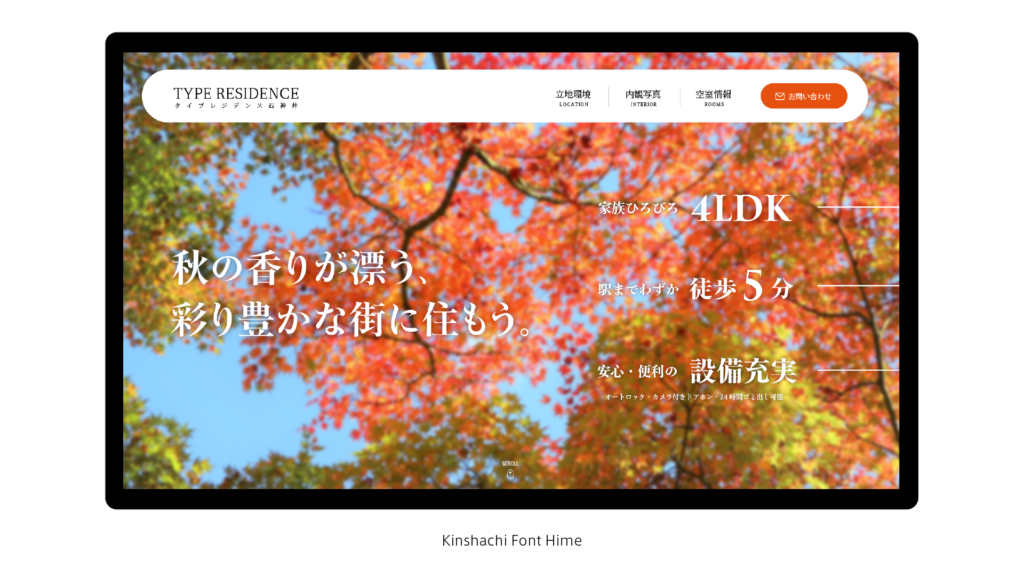
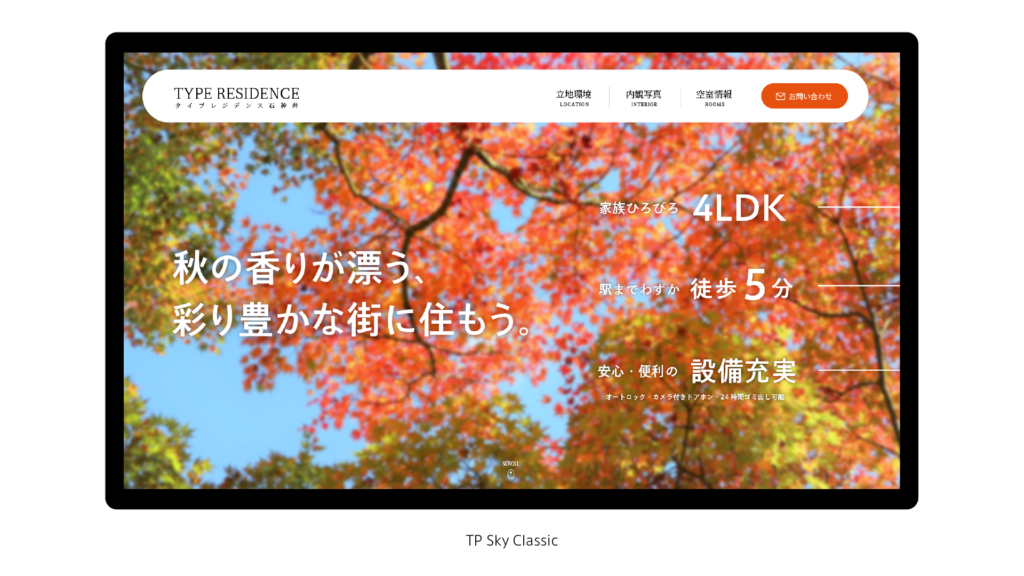
Only the fonts are changed, but it is understood that the impression given by these websites is significantly changed.
Switching the font changes the expression of a website; you may feel a change in impression and tone given by the sentence.
In website design, text is currently a very important graphic element that influences the overall website impression and brand.
In this series, the glamour of web font and its specific usages and technical aspects will also be explained.